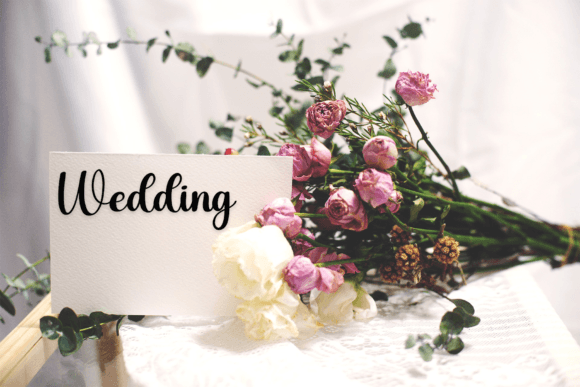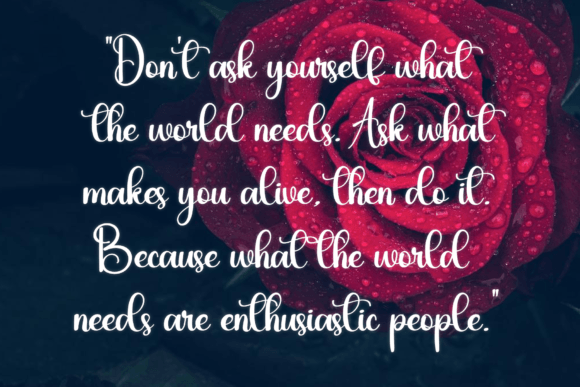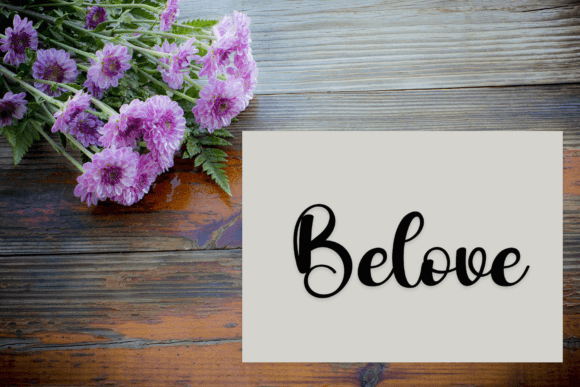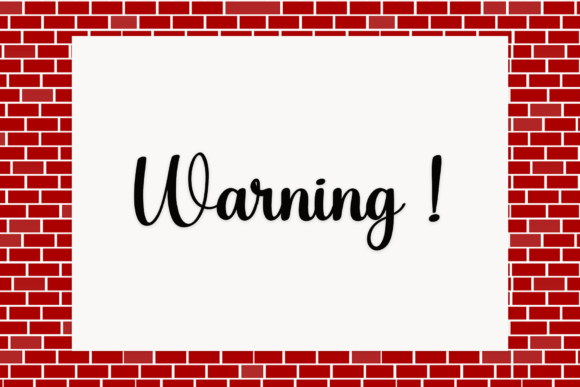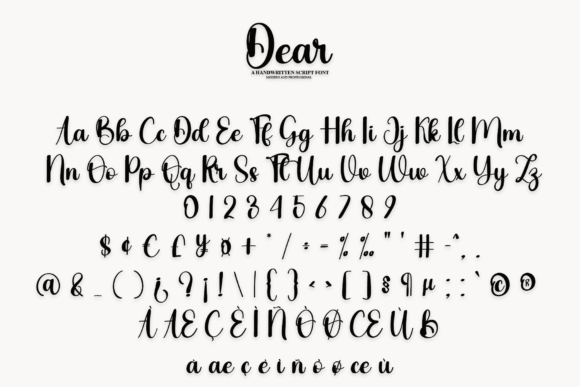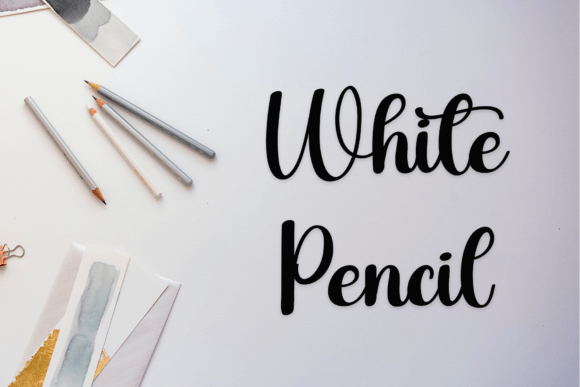
Introducing Dear Font: The Sweet and Elegant Cursive Handwritten Font
Are you looking for a font that can add a touch of elegance and romance to your designs? Look no further than Dear Font, a beautiful cursive handwritten font that is perfect for a variety of design projects. In this article, we’ll take a closer look at Dear Font, its features, and how you can use it to elevate your designs.
What is Dear Font?
Dear Font is a sweet and cursive handwritten font that is designed to add a touch of warmth and personality to your designs. Its gentle curves and flowing lines make it perfect for creating elegant and sophisticated designs that are sure to impress. Whether you’re working on a branding project, a wedding invitation, or a marketing promotion, Dear Font is the perfect choice.
Features of Dear Font
Dear Font has a number of features that make it stand out from other fonts. Some of its key features include:
- Sweet and cursive handwritten style: Dear Font has a beautiful, cursive handwritten style that is perfect for creating elegant and sophisticated designs.
- Gentle curves and flowing lines: The font’s gentle curves and flowing lines make it perfect for creating designs that are both elegant and feminine.
- Perfect for a variety of design projects: Dear Font is versatile and can be used on a variety of design projects, including branding, logos, wedding things, greeting cards, fashion, lookbooks, and marketing promotions.
- Fancy, elegant, and casual: Dear Font is the perfect choice when you want to create designs that are both fancy and elegant, but still casual and approachable.
How to Use Dear Font
Dear Font is easy to use and can be incorporated into a variety of design projects. Here are a few ways you can use Dear Font:
- Branding: Use Dear Font to create elegant and sophisticated branding materials, such as logos, business cards, and letterheads.
- Wedding things: Dear Font is perfect for creating beautiful wedding invitations, wedding stationery, and other wedding-related designs.
- Greeting cards: Use Dear Font to create beautiful and heartfelt greeting cards for special occasions, such as birthdays, anniversaries, and holidays.
- Fashion and lookbooks: Dear Font is perfect for creating stylish and elegant fashion designs, such as lookbooks, fashion magazines, and clothing labels.
- Marketing promotions: Use Dear Font to create eye-catching and effective marketing materials, such as brochures, flyers, and posters.
Tips for Using Dear Font
Here are a few tips for using Dear Font:
- Use it with a simple background: Dear Font looks best when paired with a simple background. Avoid using it with busy or patterned backgrounds that may distract from the font.
- Experiment with different colors: Dear Font looks great in a variety of colors. Experiment with different colors to find the one that works best for your design.
- Use it sparingly: Dear Font is a elegant and sophisticated font. Use it sparingly to avoid overwhelming your design.
Dear Font is a beautiful and elegant cursive handwritten font that is perfect for a variety of design projects. Its sweet and gentle curves make it perfect for creating designs that are both elegant and feminine. With its versatility and ease of use, Dear Font is a great addition to any designer’s font collection. Whether you’re working on a branding project, a wedding invitation, or a marketing promotion, Dear Font is the perfect choice.
Overall, Dear Font is a beautiful and elegant font that can add a touch of sophistication and romance to your designs. With its versatility and ease of use, it’s a great choice for designers and crafters looking to create elegant and effective designs.